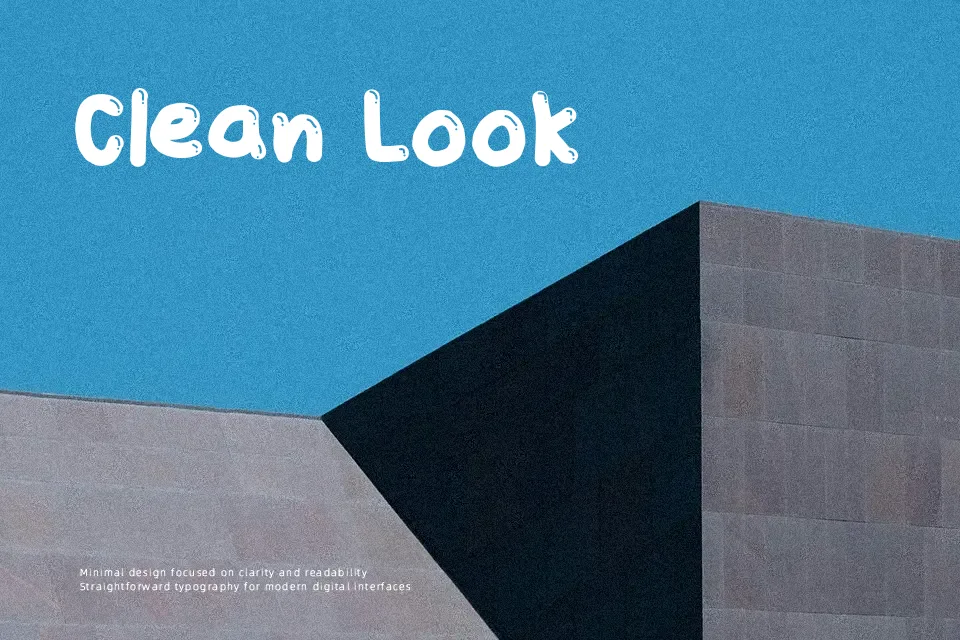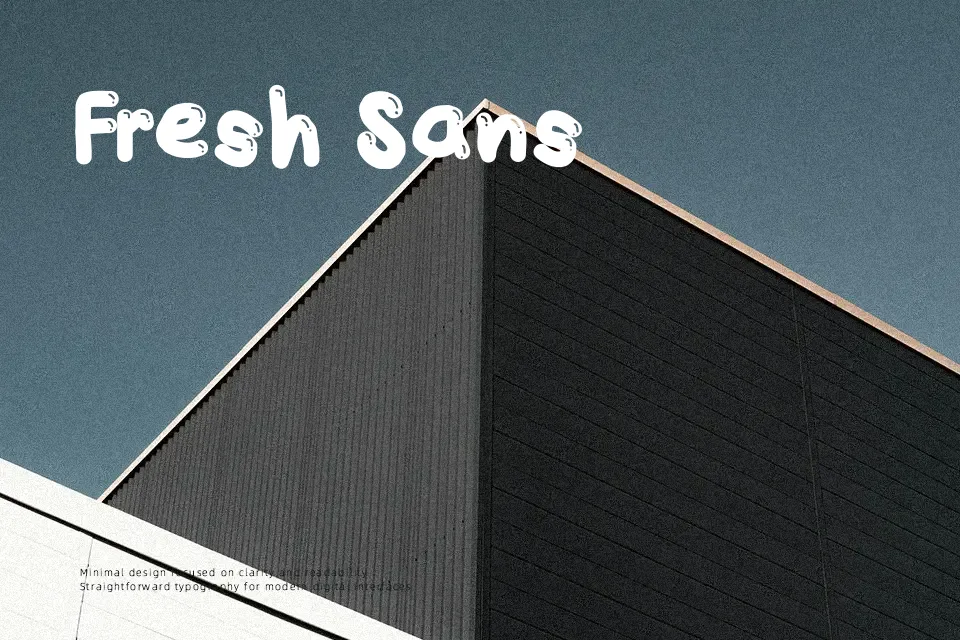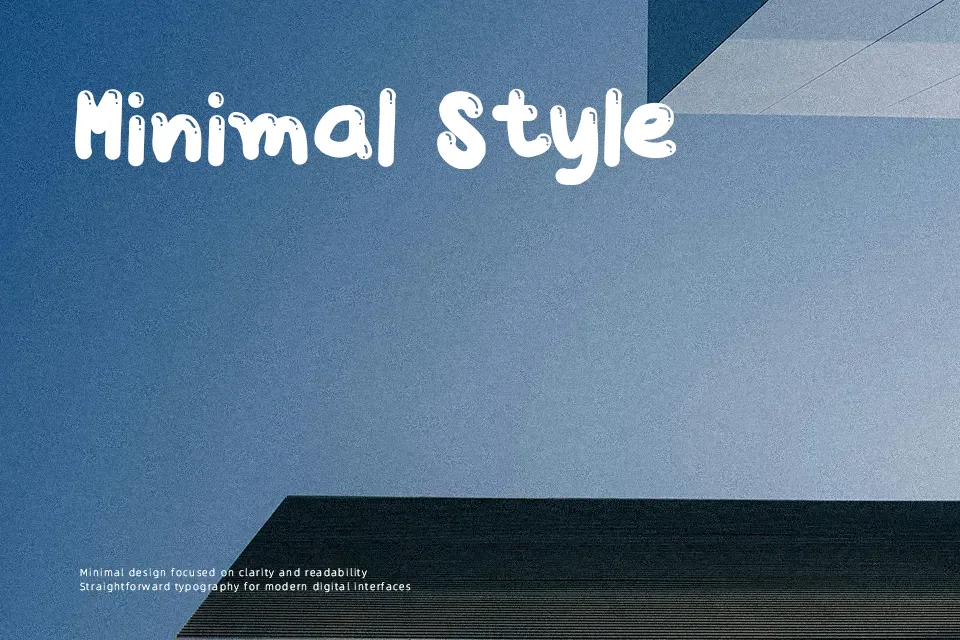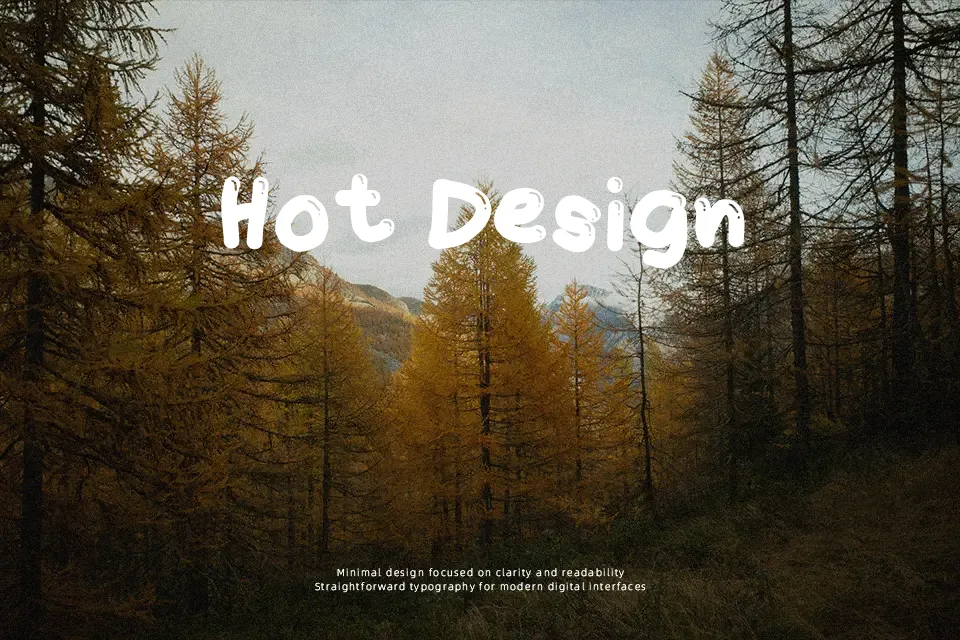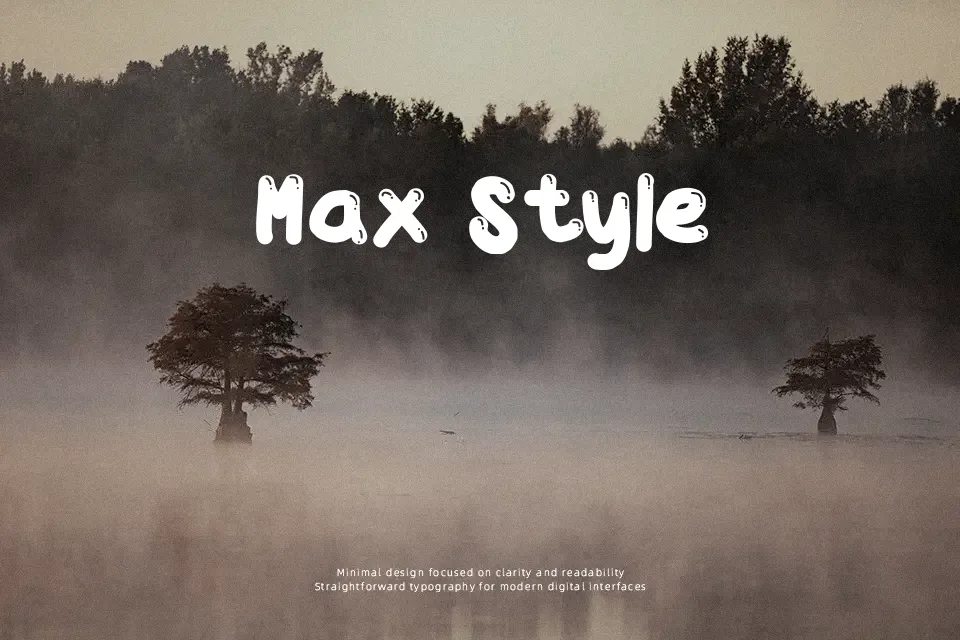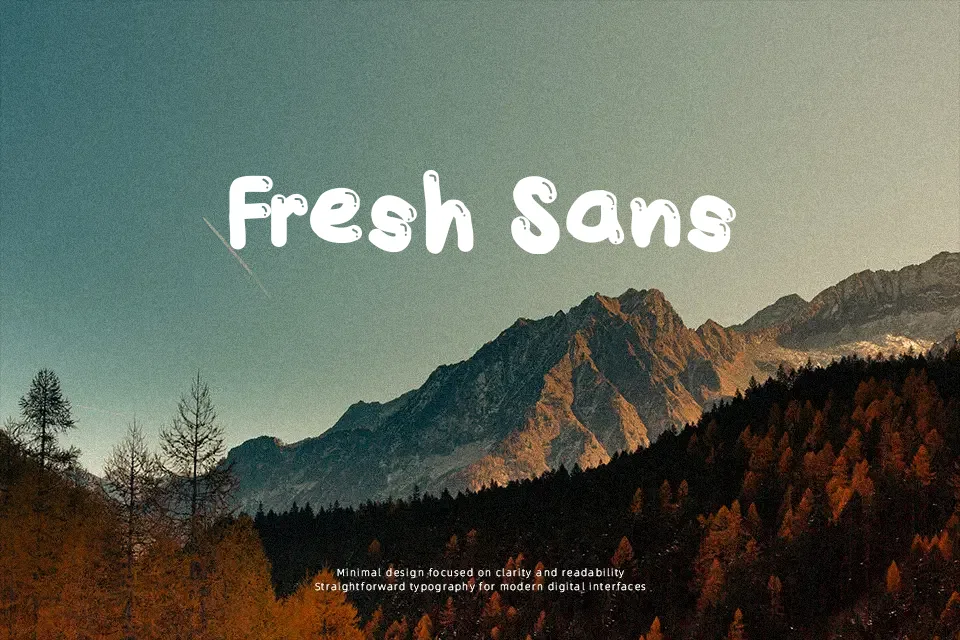
TX Jello Font
TX Jello Font performs best when deployed across large display applications where its heavy weight and exaggerated curvature command immediate visual interest. The letterforms feature thick, swollen strokes with pillowy, rounded terminals that create a distinctly gelatinous silhouette. Character widths remain relatively uniform, while interior counters contract into compact apertures due to the substantial stroke mass. Letter spacing sits moderately tight, generating cohesive word blocks suitable for short merchandise titles, celebratory event signage, and snack branding. However, the condensed counters and heavy outlines significantly hinder legibility at smaller point sizes, making the typeface impractical for sustained body text or detailed captions. In display headlines, the design delivers clear, engaging character.
Best For: children’s toy packaging, animated video title cards, party event posters, casual merchandise graphics
Not Ideal For: long paragraph body text, corporate annual reports, small user interface captions, dense editorial layouts
Perfect for headline, kids, and packaging, with a bubble and cartoon style.